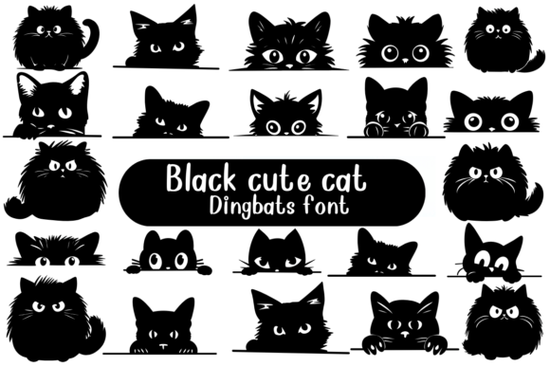
If you’ve ever wanted to add a little feline charm to your greeting cards, stickers, or social media graphics, the Black Cute Cat Font might be exactly what you’re looking for. It’s not your average typeface it’s a dingbat font where every character is a different pose of a sweet black cat peeking out, stretching, or curling up. Think of it as a stamp collection, but digital and ready to drop into Canva, Photoshop, or even your embroidery software.
This font works especially well if you’re designing for pet lovers, crafting nursery decor, or just want to sprinkle some whimsy into your next project. Because each symbol is a standalone illustration, you don’t need to worry about kerning or spacing just type any letter or number, and you’ll get a new cat pose. It’s surprisingly flexible once you start playing with it.
What kinds of projects work best with this font?
You’d be surprised how many ways you can use these little cats. Here are a few ideas that real users have tried:
- Print-on-demand products: T-shirts, tote bags, and mugs with “I ♥ My Cat” in playful cat symbols instead of hearts.
- Kids’ birthday invites: Use cat poses as bullet points or border elements around party details.
- Scrapbook embellishments: Print them small and cut them out, or layer them digitally over photos.
- Social media quotes: Pair a cat pose with a short phrase like “Nap Goals” or “Purr-fect Day.”
- Wall decals or vinyl crafts: Scale them up for nursery rooms or cat cafes they stay crisp at any size.
Pro tip: Some design apps let you browse glyphs visually. If yours does, open the glyph panel to see all available cat poses at a glance. That way, you can pick the exact expression or angle you want without guessing keystrokes.
Any tips for getting the most out of it?
A few things that help your designs feel more polished:
- Vary the sizes. Not every cat needs to be the same height. A mix of large and tiny poses adds rhythm.
- Layer with solid shapes. Place a cat silhouette over a circle or speech bubble for instant sticker-style graphics.
- Use sparingly. One or two cats often have more impact than a whole row. Let them breathe on the page.
- Try color overlays. The font is black by default, but you can recolor it easily in any vector or raster editor.
And if you’re curious about how dingbat fonts differ from icon sets or clipart, they’re actually more versatile because they’re installed as fonts, you can resize, recolor, and manipulate them just like text, without losing quality.